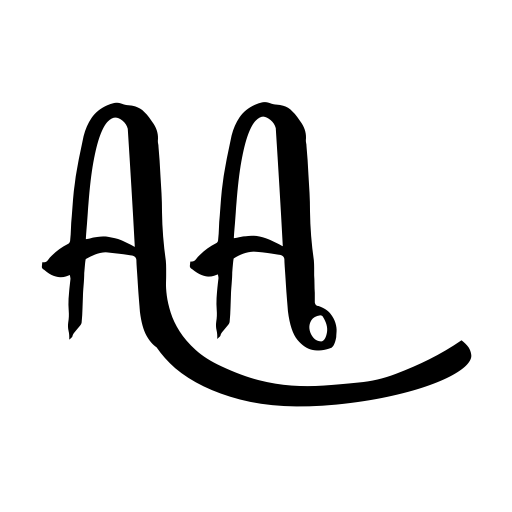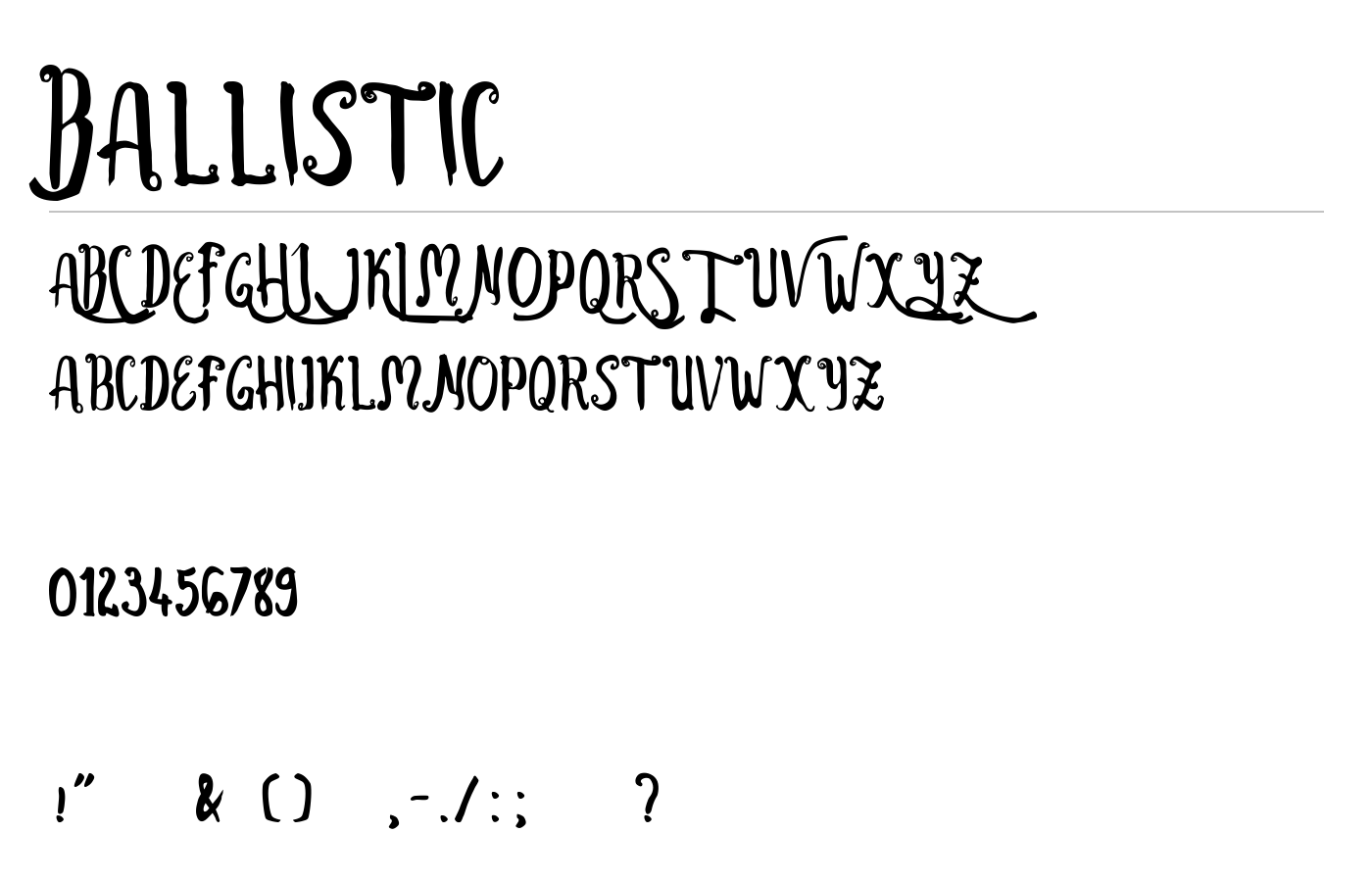
Ballistic is a whimsical, decorative serif font with a playful personality. Its tall, narrow letterforms feature quirky curls and swirls on strokes, lending a hand-drawn, vintage feel that works beautifully for creative headlines, branding, and artistic projects seeking charm and character. This font is perfect for designs that want to convey a sense of fun, uniqueness, and a touch of nostalgia.
Ballistic Font
About Ballistic Font